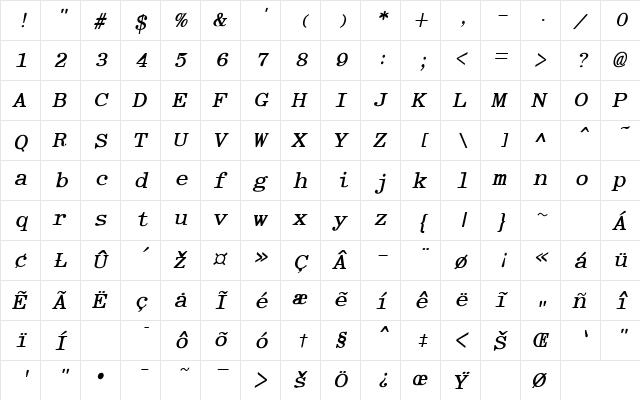
Elite-Xtra Regular
Design Context for Elite-Xtra Typeface
Elite-Xtra takes a measured approach to typography — its balanced proportions and neutral character make it a reliable workhorse for both digital and print work.